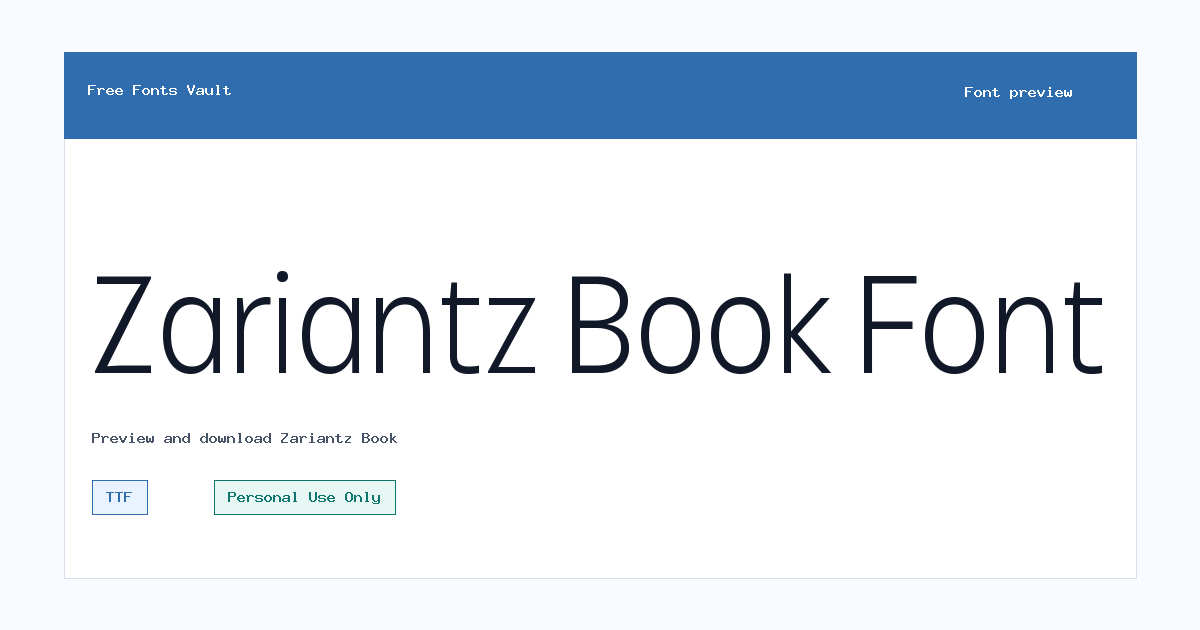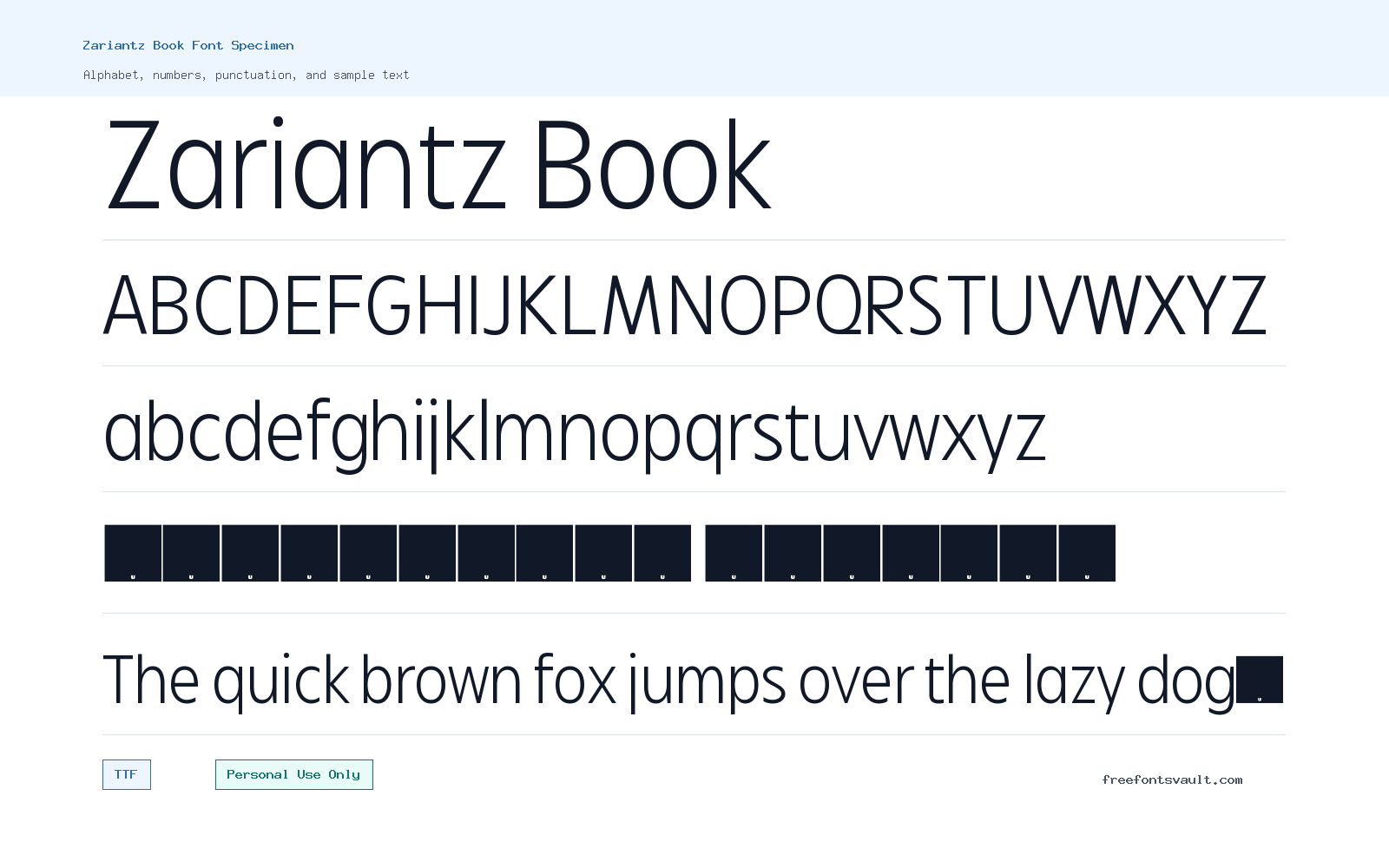
Zariantz Book
- Designer Nicola Manzari, Bruno Pierini
- Foundry Unio Designs
Zariantz Book is a personal-use font from Unio Designs, credited to Nicola Manzari and Bruno Pierini. It is supplied as a TTF file, so visitors can preview it in the browser and test it with their own words before downloading.
Zariantz Book is presented as a sans serif font, with a regular style included for testing. The “Book” name suggests a restrained text-focused direction, but the safest way to judge it is to try your own copy in the preview box. Check short headings, mixed-case words, numbers, and punctuation before deciding where it fits.
- Sans serif style with a clean, text-friendly direction
- Testing headings, short paragraphs, labels, and presentation layouts
- Personal projects, mockups, and design drafts where a clean sans serif is needed
The font is credited to Nicola Manzari and Bruno Pierini, with Unio Designs listed as the foundry/designer source.
Who designed Zariantz Book?
Zariantz Book is credited to Nicola Manzari and Bruno Pierini, with Unio Designs listed as the foundry.